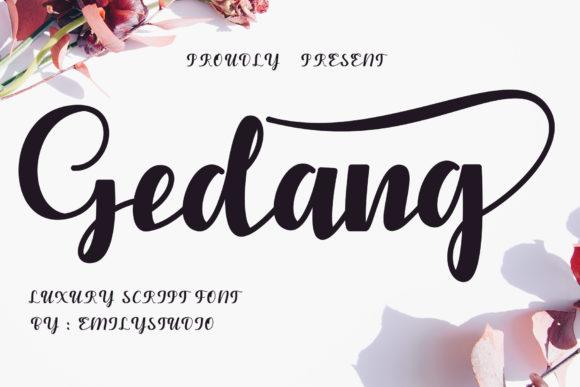
Introducing Gedang Font, an enchanting script font that will captivate your heart with its alluring strokes and elegant style. Crafted by the talented team at Emily Studio, Gedang is not just a font; it's a gateway to a world of creative possibilities.
Imagine the beauty of hand-written calligraphy, brought to life with the precision and versatility of a digital font. Gedang embodies this essence, effortlessly blending the charm of traditional penmanship with the convenience of modern technology. Its bold, sweeping strokes evoke a sense of timeless sophistication, while subtle nuances and flourishes add an irresistible touch of elegance.
Let Gedang become your secret weapon for creating stunning designs that leave a lasting impression. Its versatility knows no bounds, making it the perfect choice for a myriad of projects. Unleash your creativity with eye-catching advertisements that demand attention, showcase the allure of beauty and lifestyle products, craft unforgettable invitations that set the tone for special occasions, and design visual masterpieces that ignite the senses.
With Gedang, you have the power to transform ordinary words into captivating works of art. Its organic flow and graceful curves lend a touch of refinement to any design, evoking emotions and creating a lasting connection with your audience.
But Gedang is more than just a pretty face. It's a meticulously crafted font that caters to the discerning designer. PUA encoding unlocks a world of hidden glyphs and swashes, empowering you to add intricate details and flourishes with effortless ease. Embrace the boundless possibilities of customization and let your imagination soar.
If you seek a font that combines beauty, versatility, and effortless style, look no further than Gedang. It's the perfect tool to elevate your designs, captivate your audience, and leave an unforgettable mark on the world of visual communication.